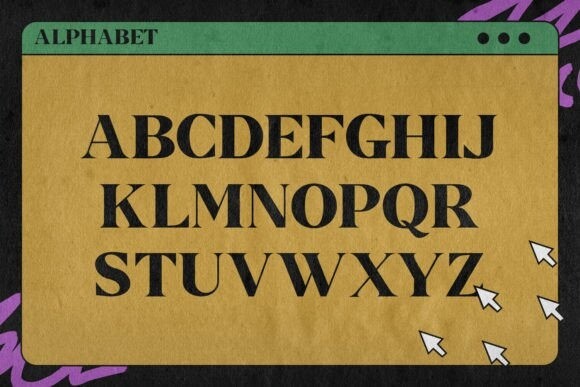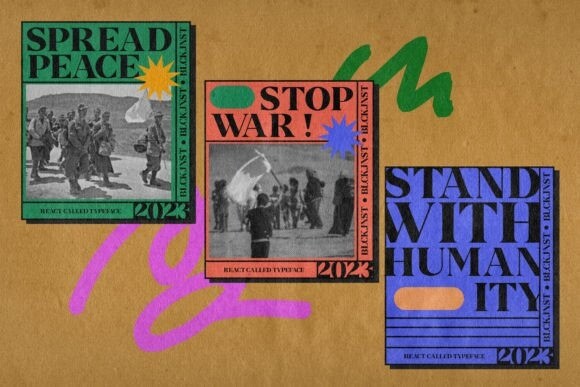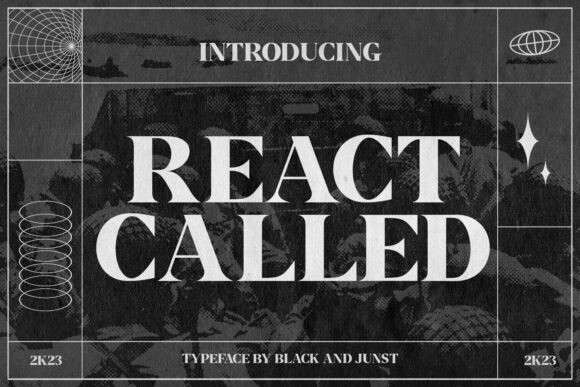
React Called Font
React Called Font is a modern, sleek, and stylish serif font. With its versatile appearance, this font will look great in a wide variety of contexts.